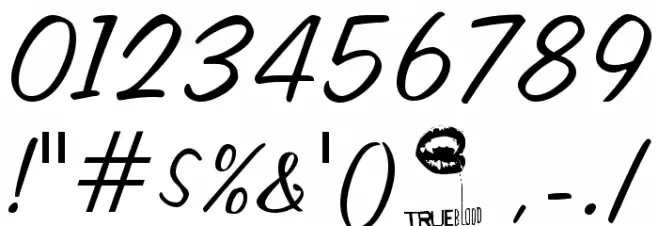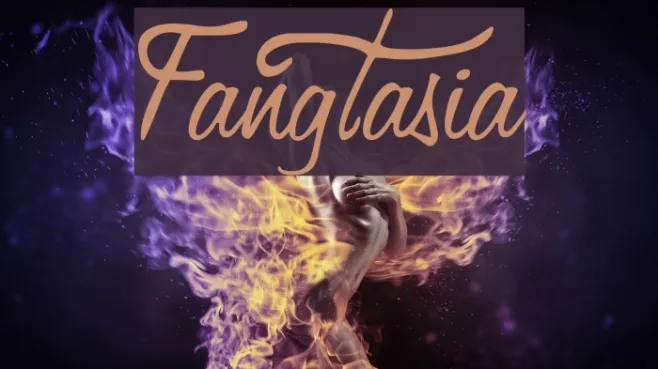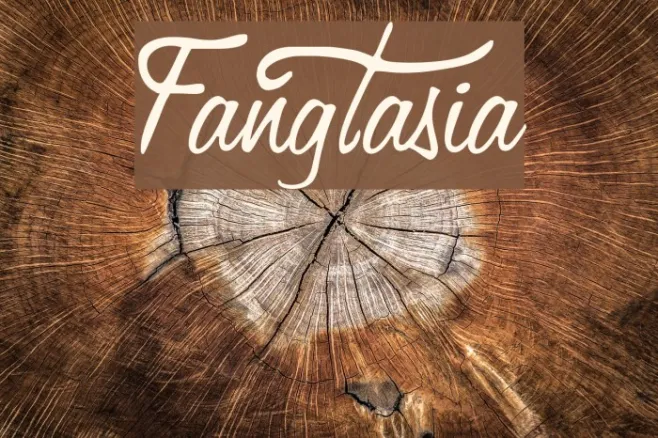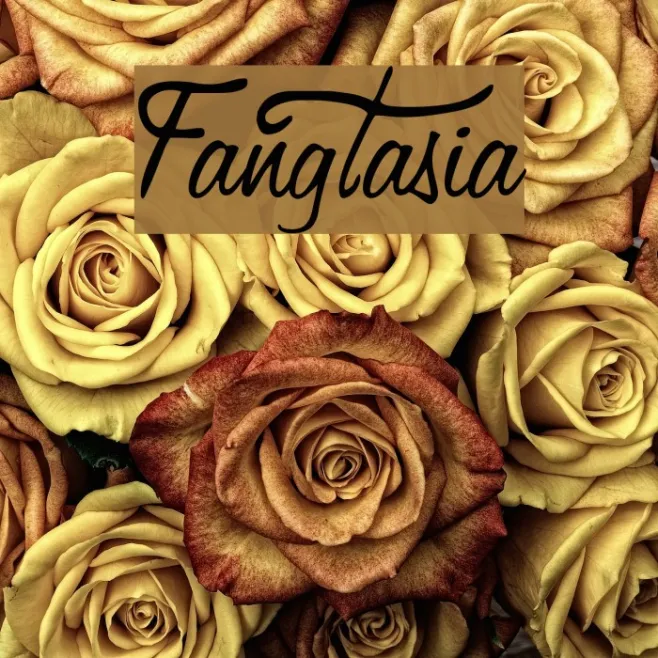
Fangtasia Font
Fangtasia Description
This font features a dynamic and fluid script style, characterized by its elegant and flowing letterforms. The uppercase letters are slightly slanted, giving a sense of movement and energy, while the lowercase letters maintain a consistent rhythm with their connected strokes. The numerals are bold and clear, ensuring readability. Special characters are creatively designed, adding a unique flair to the overall appearance. This font exudes a sense of sophistication and modernity, making it suitable for a variety of design applications.
A dynamic and fluid script font with elegant, flowing letterforms from TV show fonts.
- Font: Fangtasia
- Proposed Projects: Ideal for branding, invitations, and editorial design where a touch of elegance and modernity is desired.
- Use Case: Logos, Invitations, Editorial Design